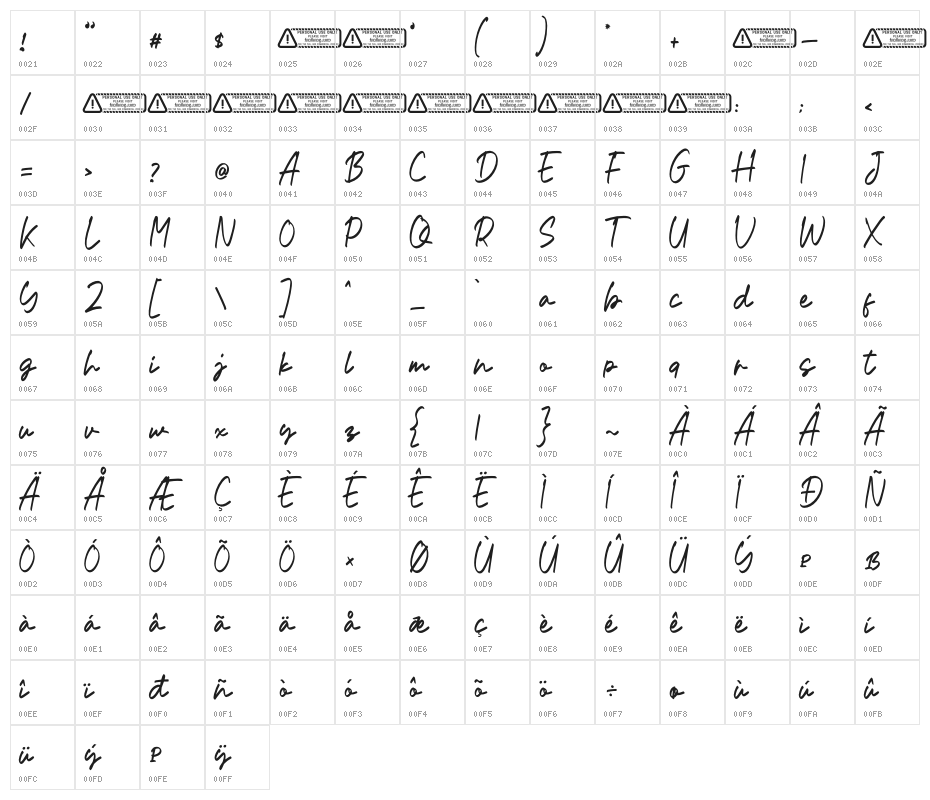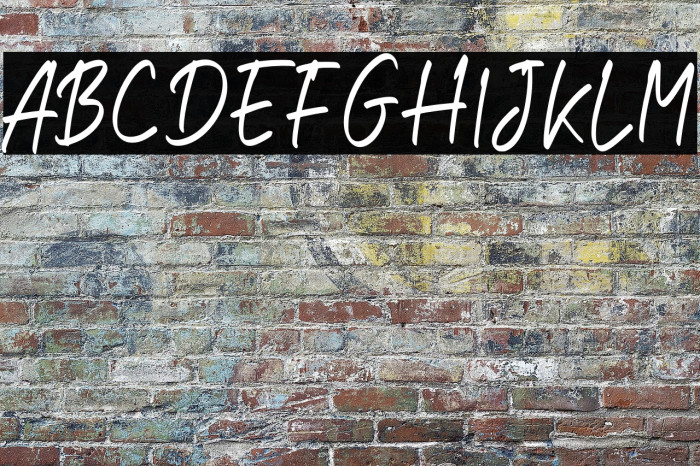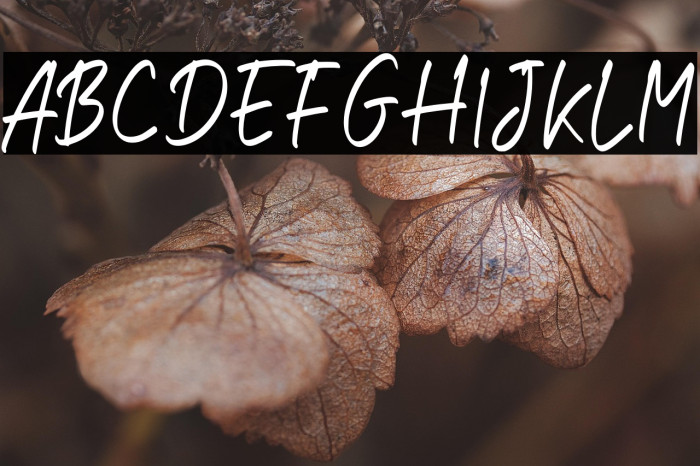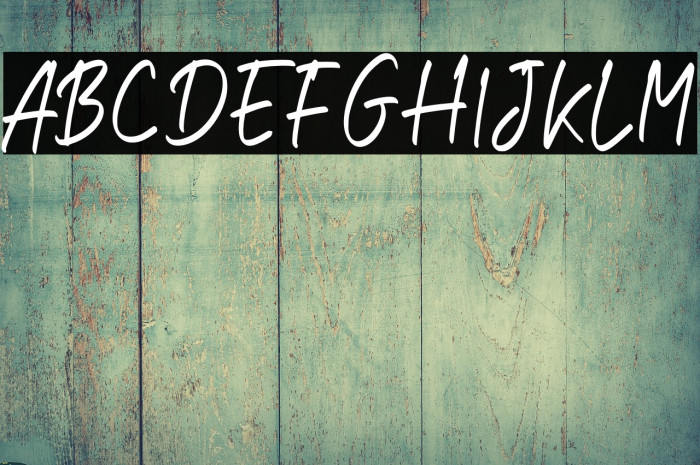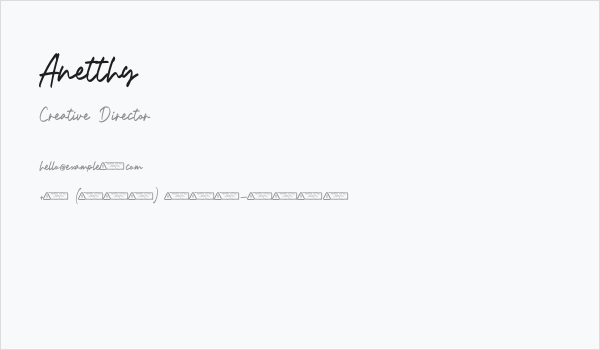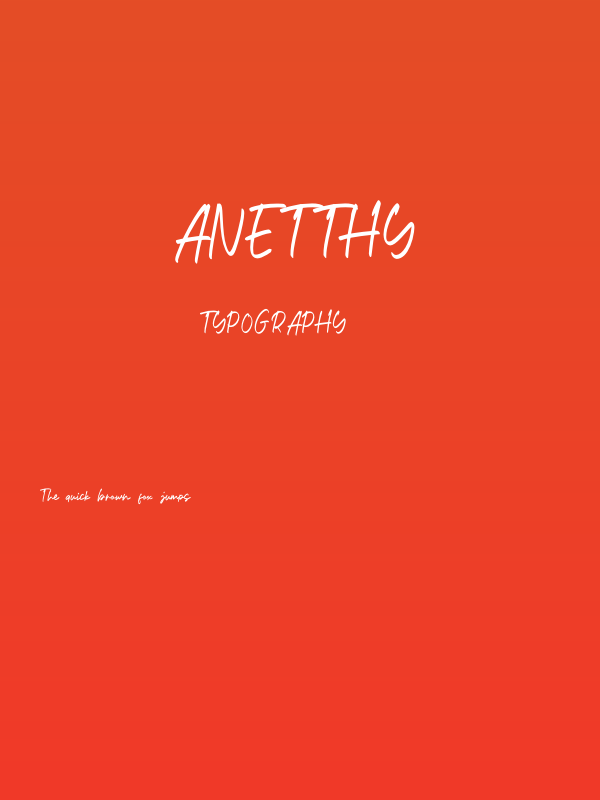
Anetthy Font
Anetthy Description
A casual, handwritten script font with fluid, connected strokes and a natural, slightly slanted appearance. The characters are smooth and organic, mimicking authentic handwriting with moderate variation in stroke thickness.
| Overall Style | Casual, Modern, Handwritten |
| Use Case | Logos, Headlines, Informal body text, Personal notes |
| Proposed Projects | Invitations, greeting cards, personal branding, quotes, social media graphics. |